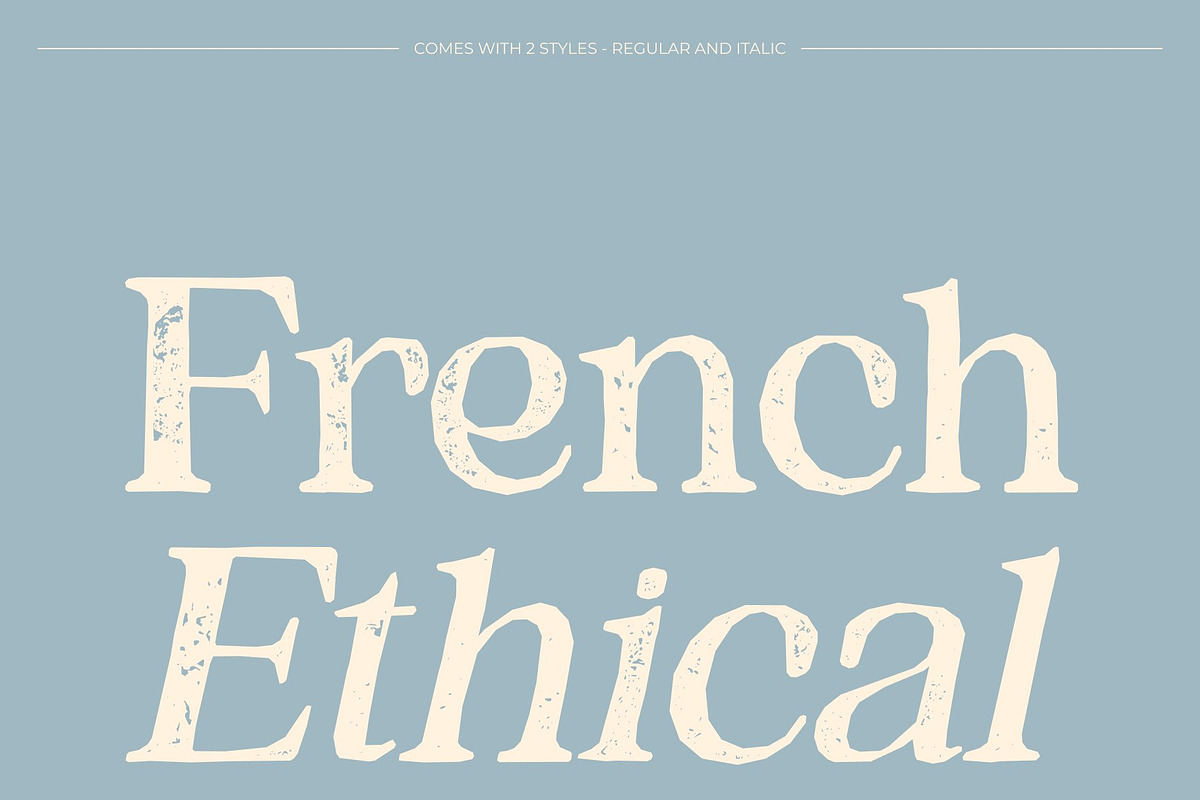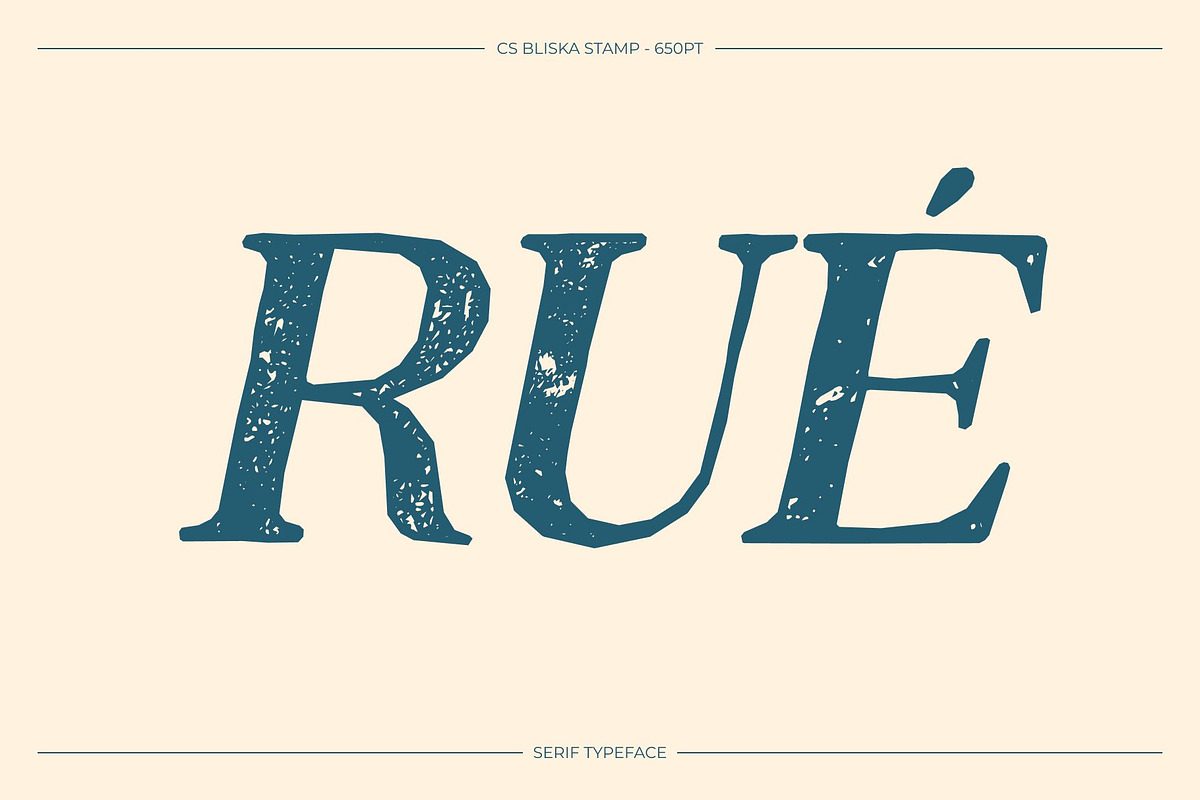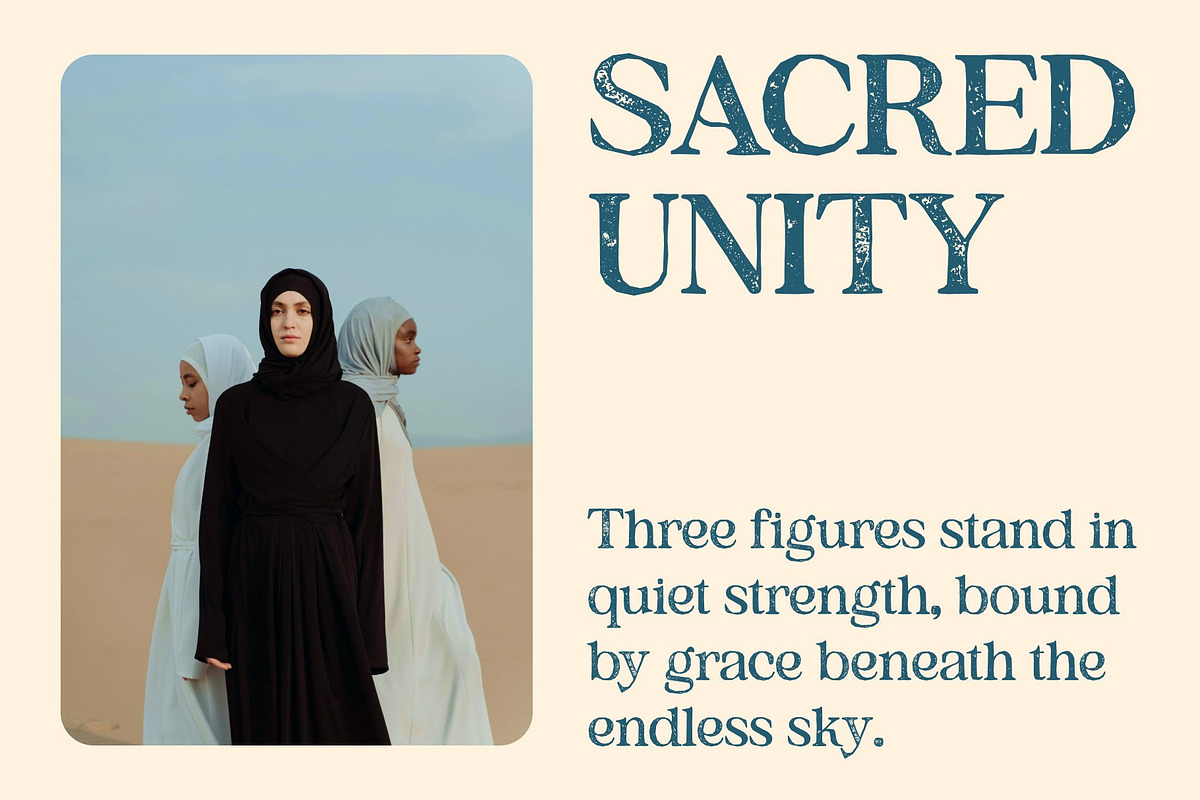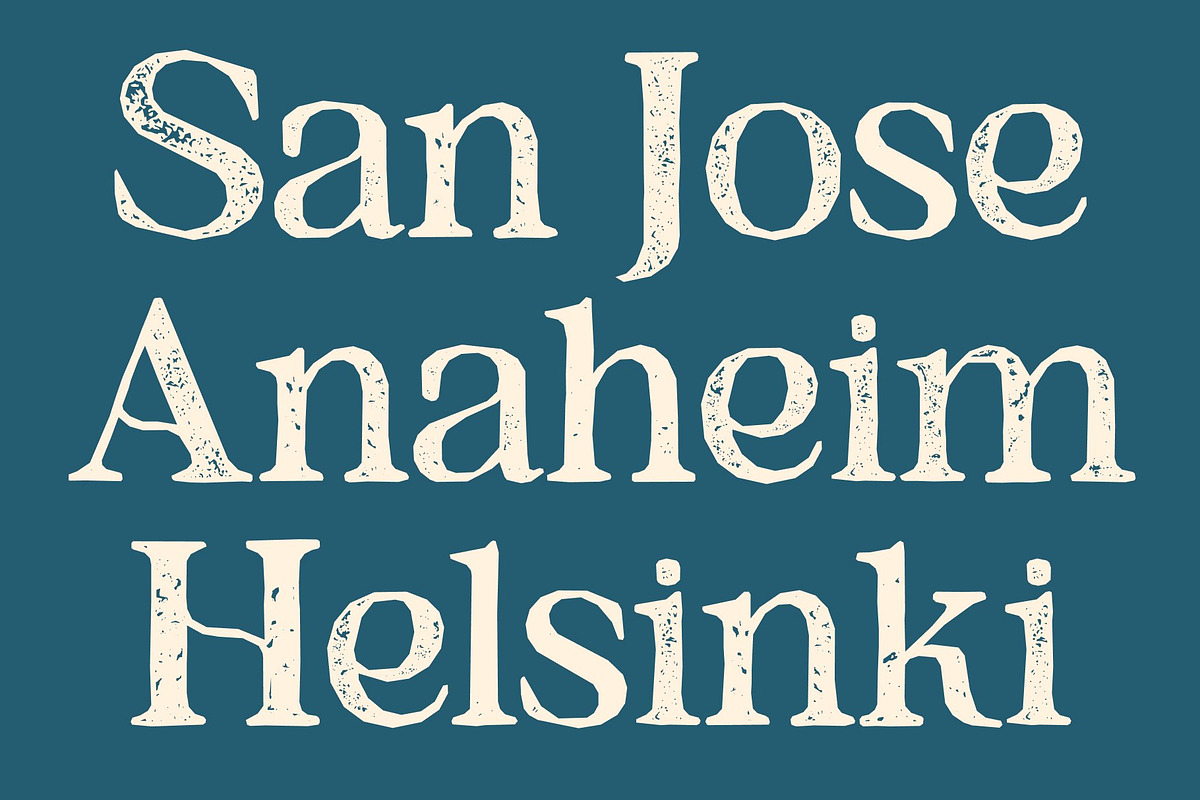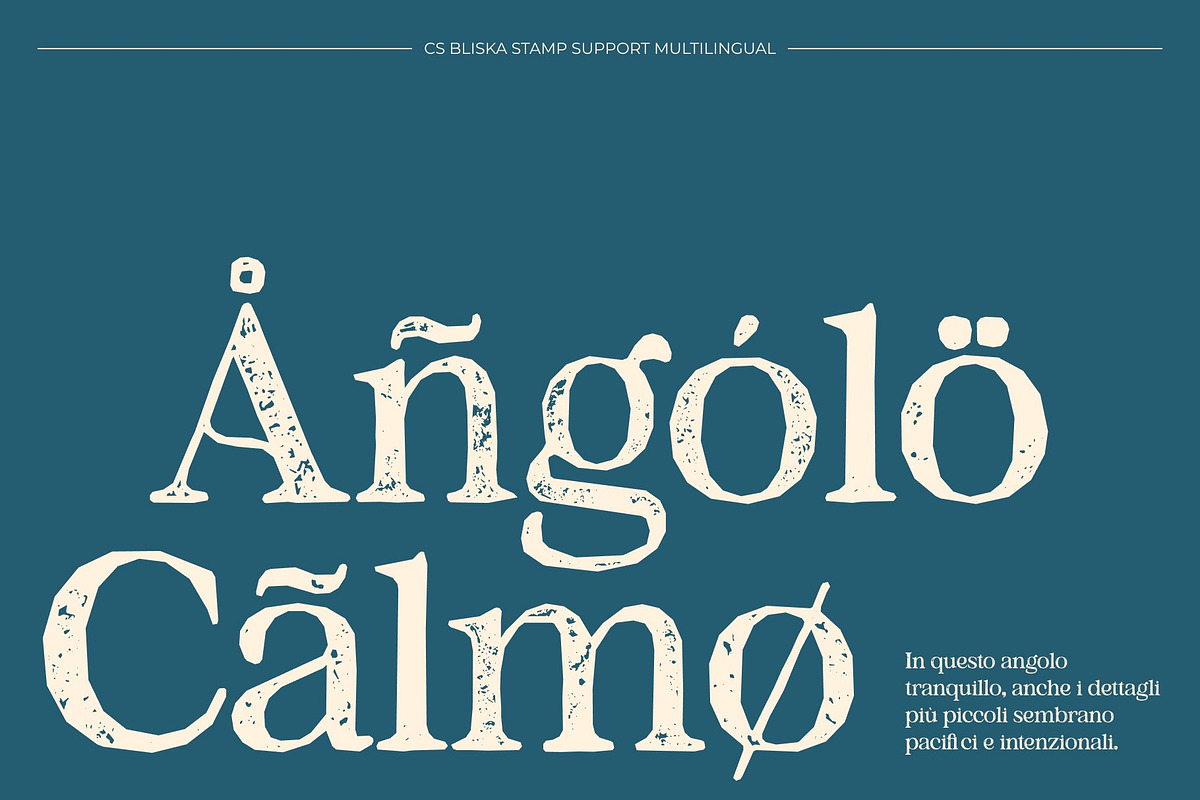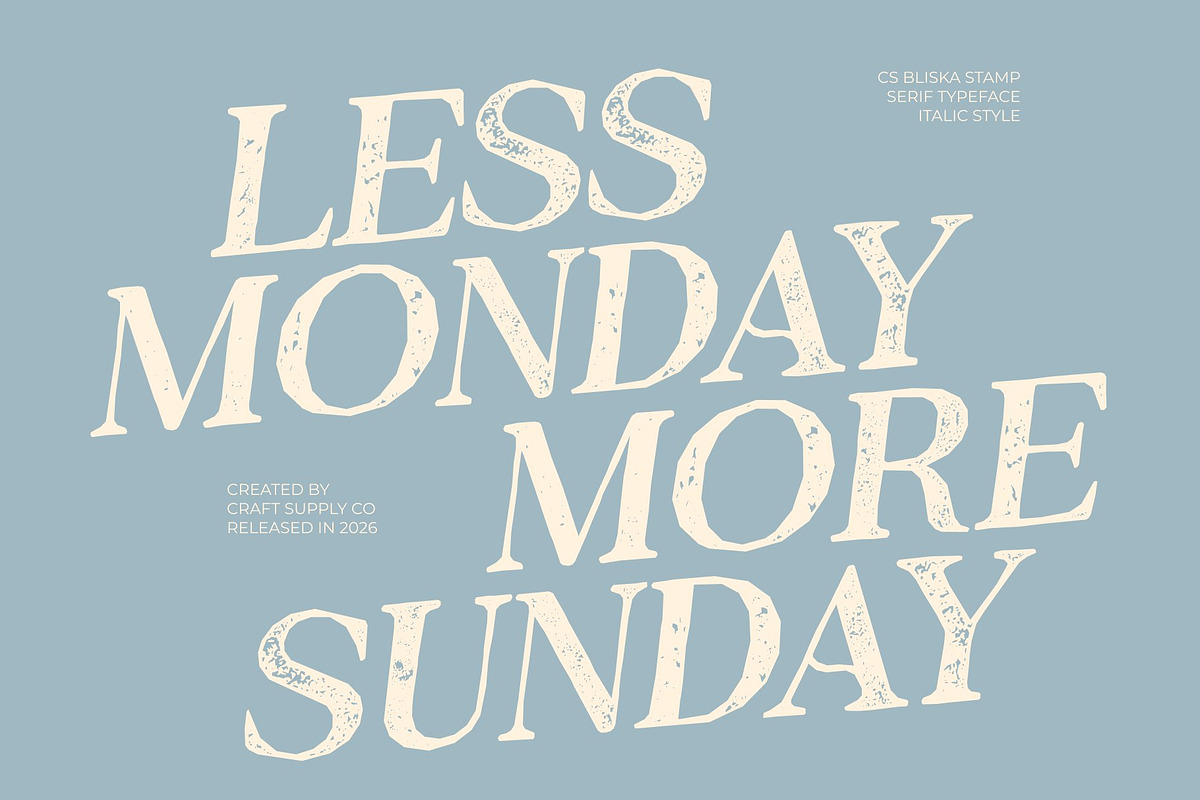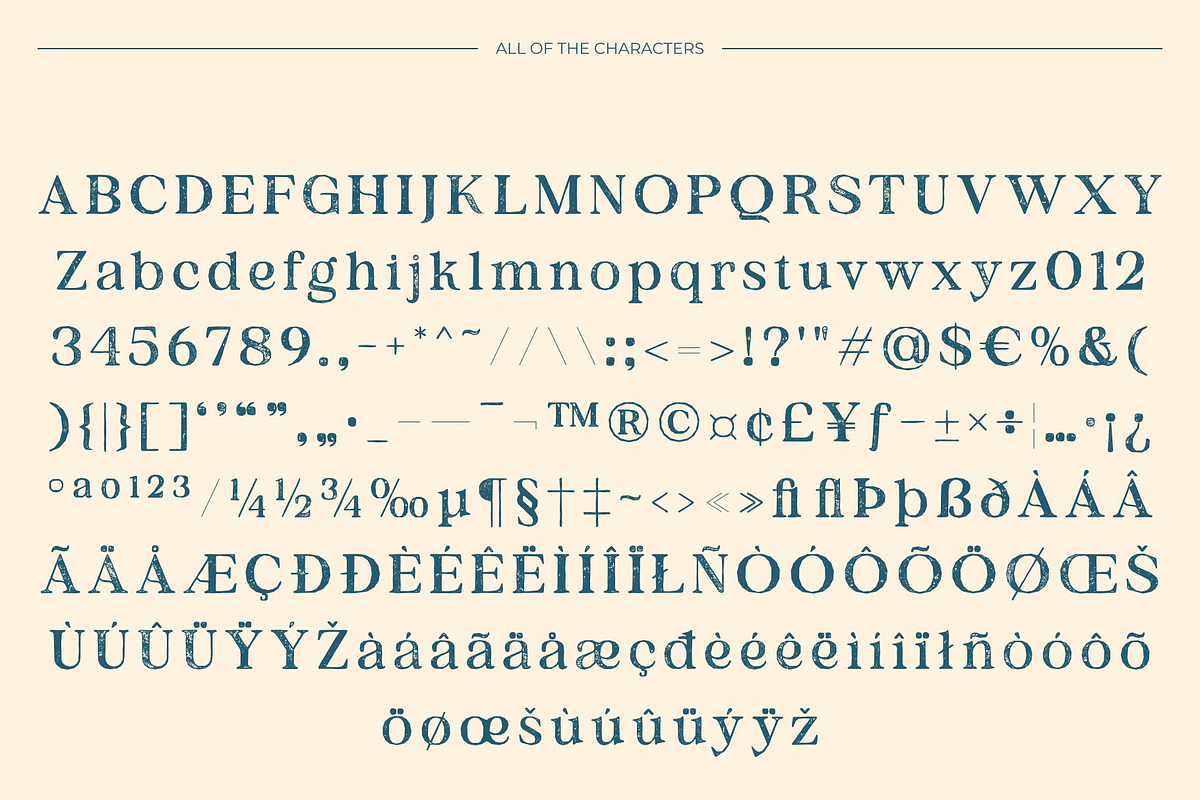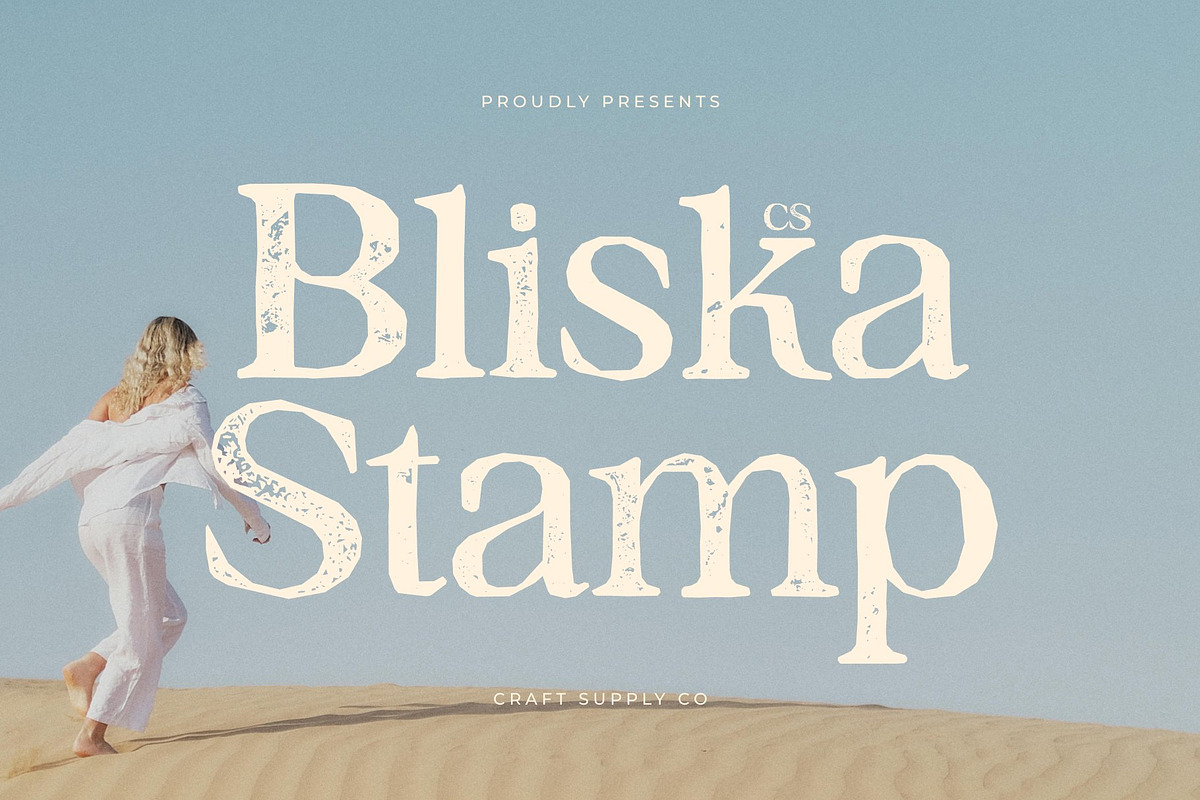
CS Bliska Stamp
CS Bliska Stamp – Elegant Serif Font with Vintage Feminine Grace
Timeless Elegance with Handcrafted Texture This reimagines the original elegant serif with a subtle stamped texture that introduces warmth, character, and a sense of history. Its refined letterforms remain graceful and balanced, while gentle imperfections, ink variations, and lightly distressed edges create the look of classic print craftsmanship. The result is a font that feels timeless, artistic, and beautifully human.
Soft Feminine Character with Aged Sophistication The delicate serifs and flowing curves continue to express femininity and calm elegance, now enhanced by a vintage stamp effect. This texture adds emotional depth and authenticity, giving the font a softly worn charm reminiscent of antique books, heritage labels, and classic editorial typography. It feels classy, romantic, and quietly confident.
Perfect for Beauty, Fashion, and Vintage-Inspired Design This is ideal for fashion branding, beauty packaging, wedding stationery, boutique logos, magazine headlines, and lifestyle visuals that seek refined elegance with an old-world touch. The stamped finish elevates designs by adding texture without overpowering the font’s gentle sophistication.
Elegant, Artistic, and Enduring By combining graceful serif design with a subtle vintage stamp texture, this font delivers a distinctive typographic voice feminine, calm, and expressive. It’s a perfect choice for designers who want to communicate luxury, beauty, and authenticity with a timeless, handcrafted feel.
CS Bliska Stamp Regular
CS Bliska Stamp Italic